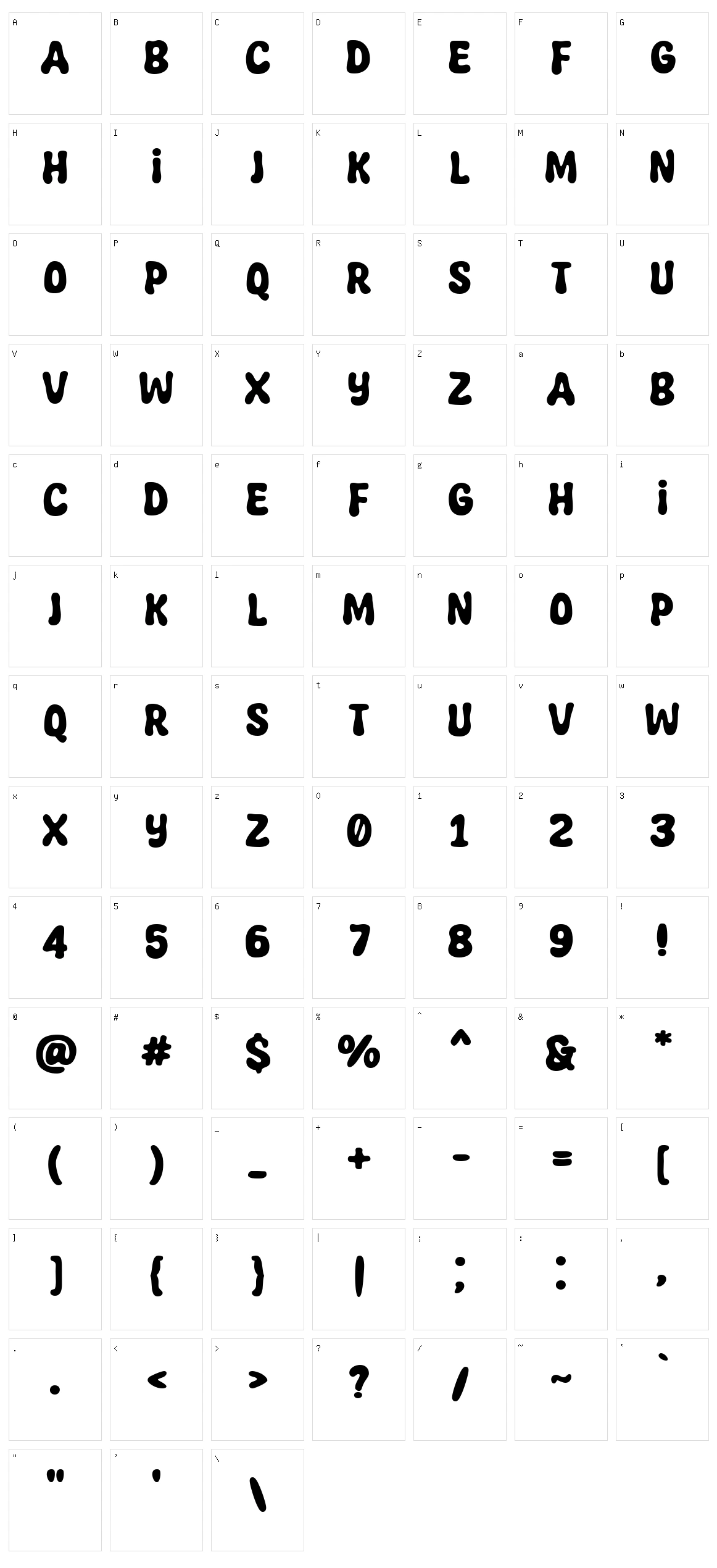
The free font Super Funtime is carefully designed by fsuarez913, showcasing a thoughtful balance of creativity and usability and falls under the Groovy font style. When you download the ZIP file, it contains only 32.88 KB of font files, making it lightweight and quick to download. Please review the license details below to understand permitted usage and distribution rights. If license information is not available, we recommend using this font for personal projects only or contacting the author directly for commercial usage permissions.